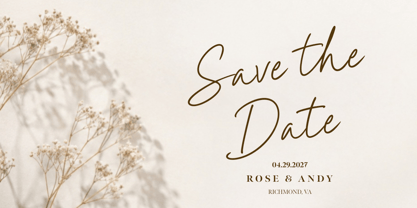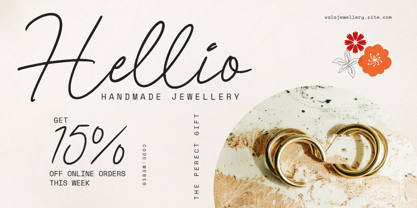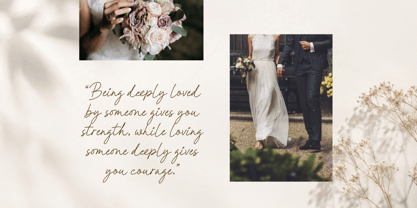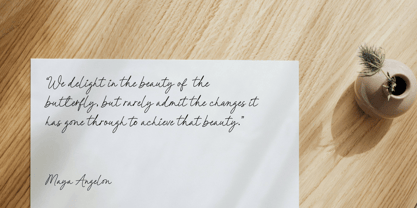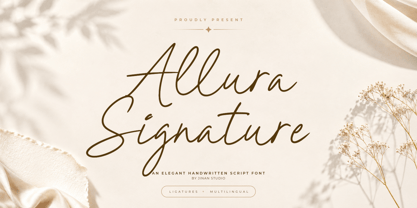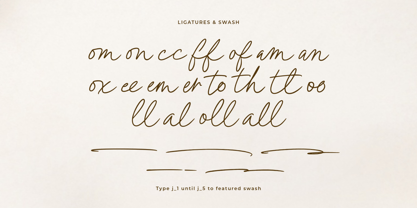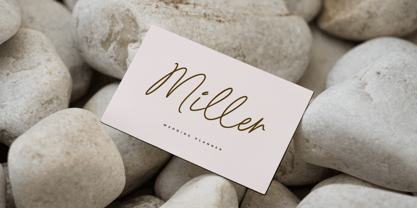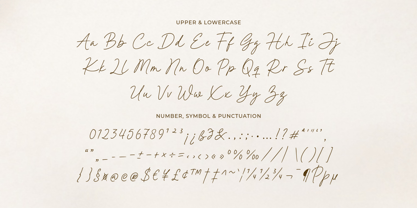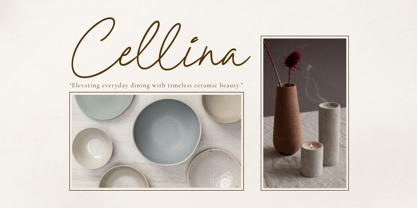
Allura Signature
by Jinan Studio
Allura Signature is a modern elegant handwritten script font designed to bring luxury, sophistication, and natural beauty into your creative projects. Featuring smooth flowing strokes, graceful curves, and authentic signature-style details, this font delivers a refined handwritten appearance with a clean contemporary finish.
Carefully crafted for premium branding and stylish typography, Allura Signature combines elegant letterforms with excellent readability, making it perfect for both large headlines and delicate text compositions. Ideal for logos, wedding invitations, branding, packaging, social media templates, fashion editorials, beauty products, quotes, photography overlays, business cards, luxury branding, and elegant display typography.
Features
• A set of uppercase and lowercase glyphs.
• Number, symbol, and punctuation.
• Multilingual Support.
• Ligatures